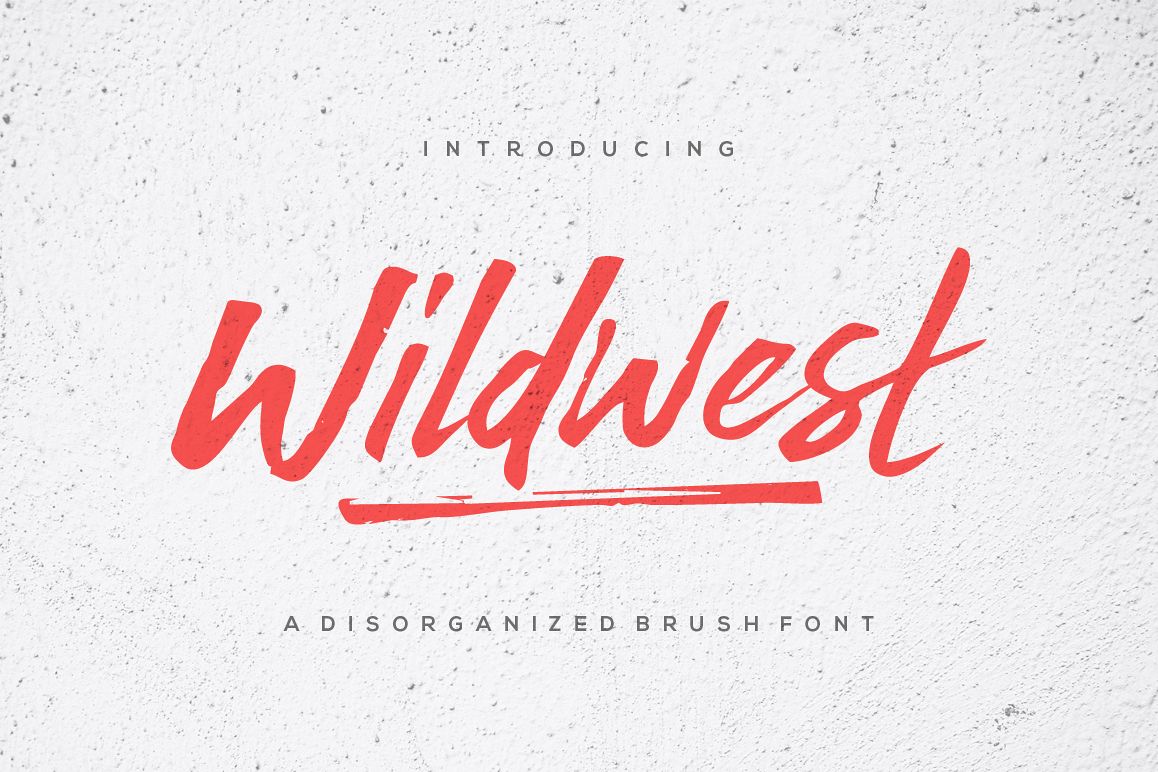
Wildwest
WildwestSwash
Wildwest is a brush font. Wildwest a very good for logotype, website header, fashion design, name tag, quotes, labels, t-shirts, packaging and any more.